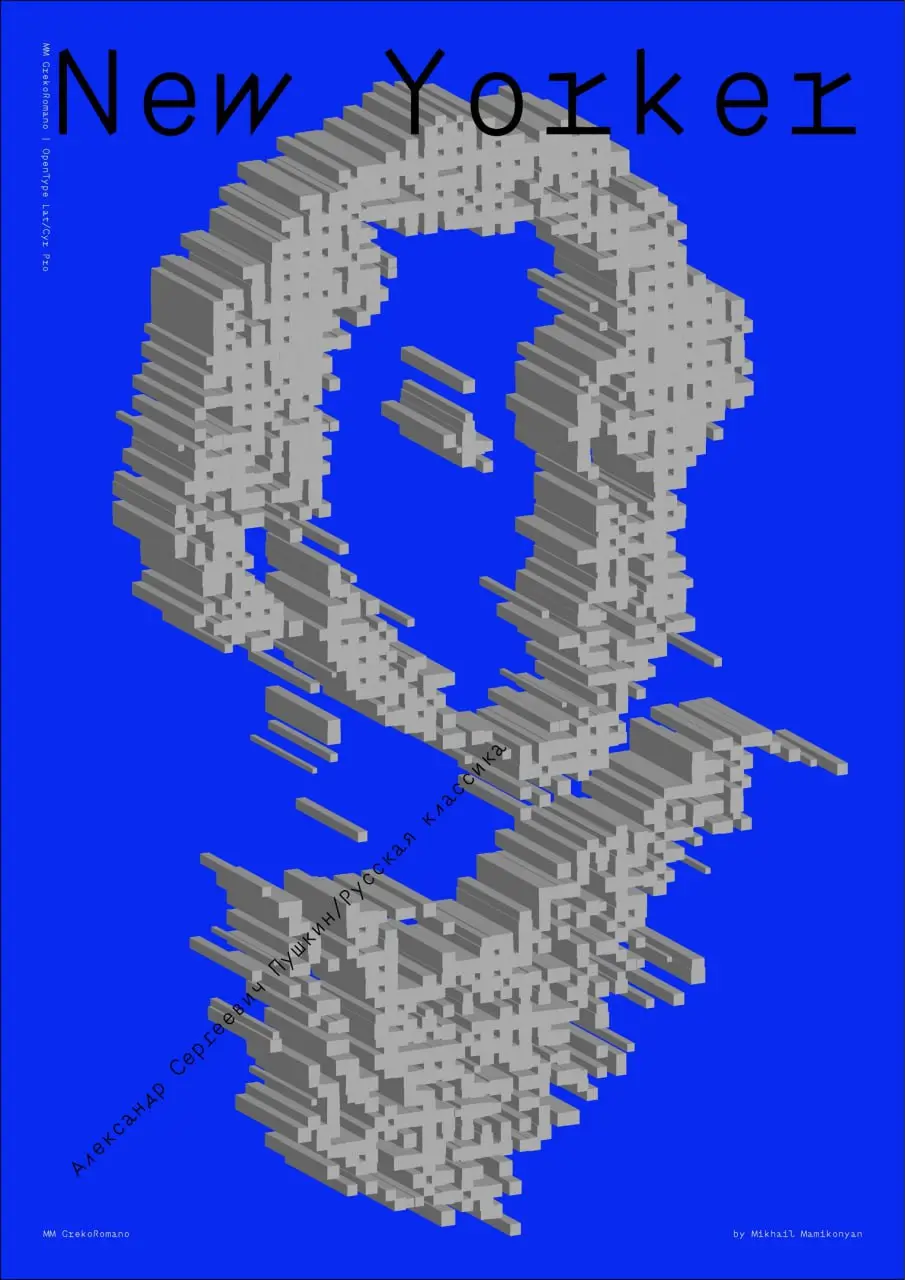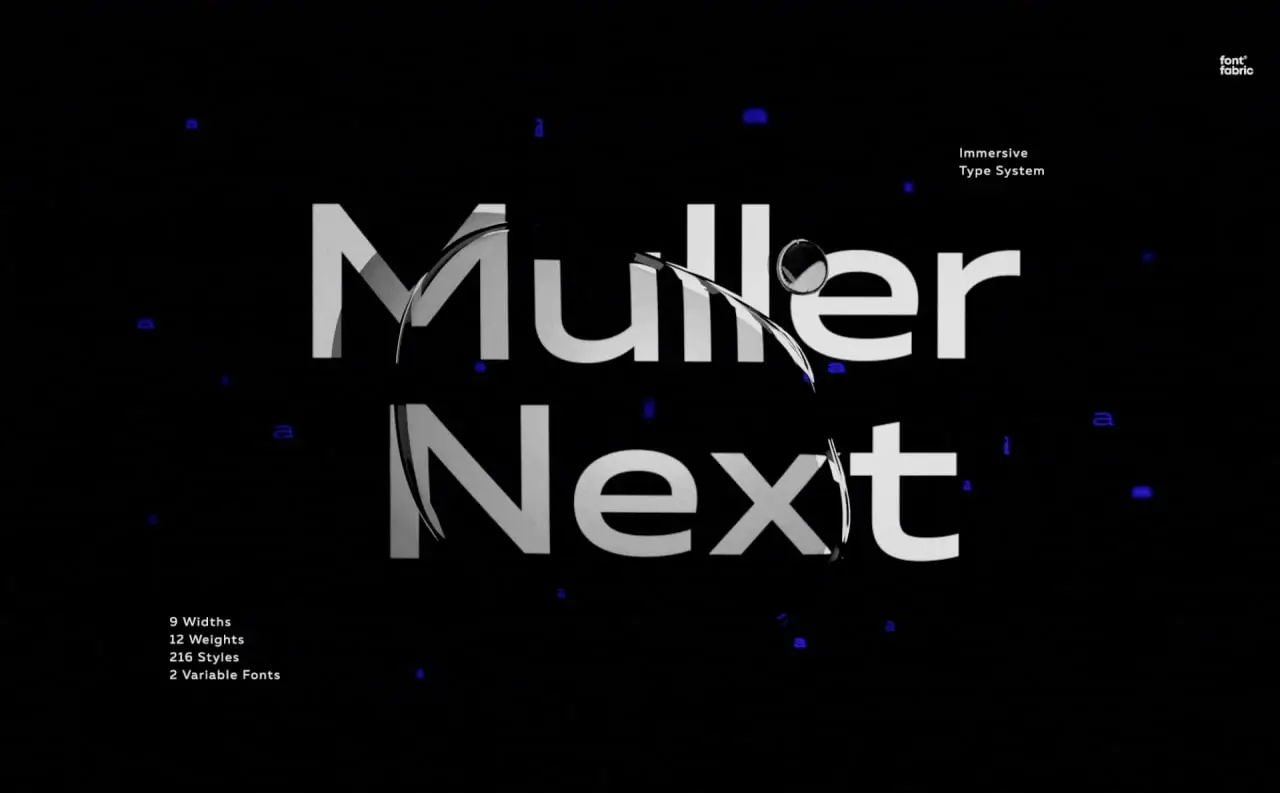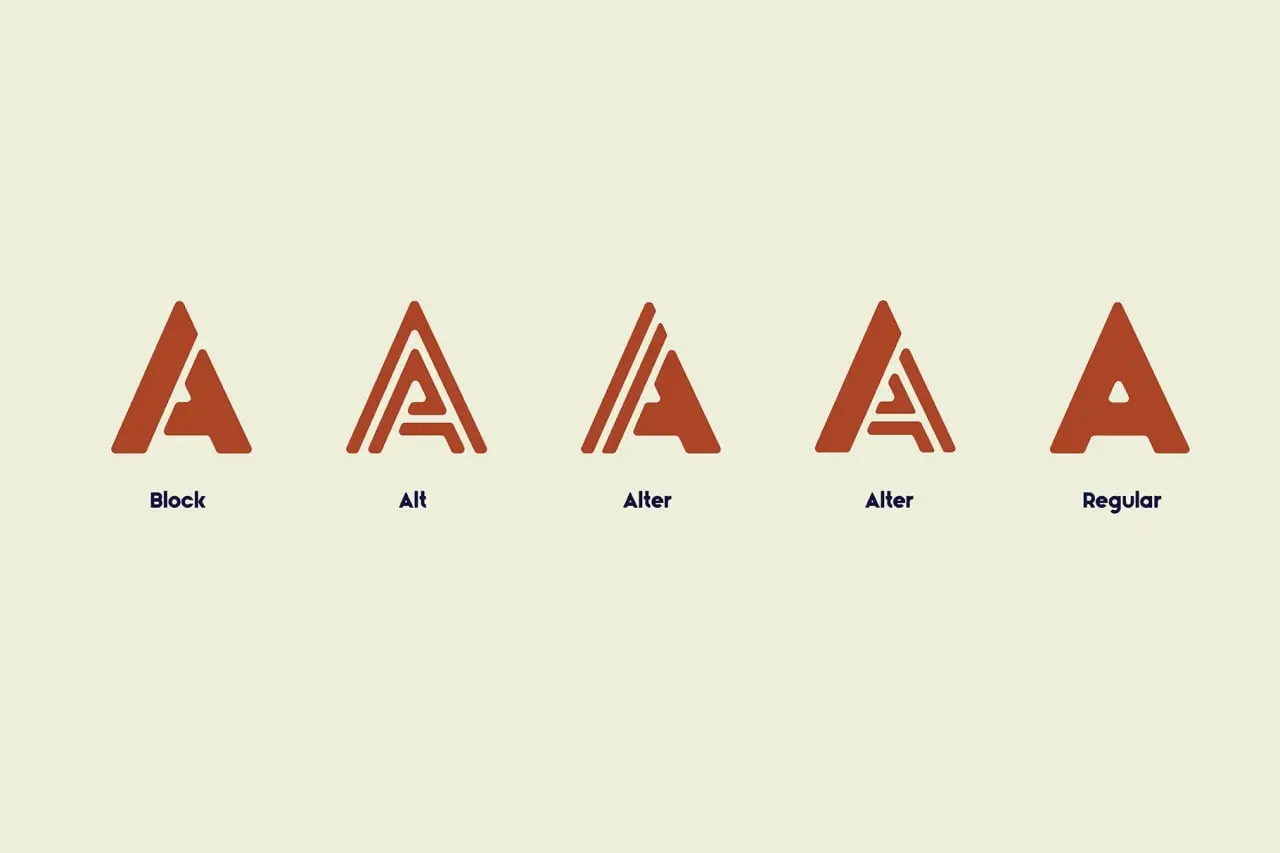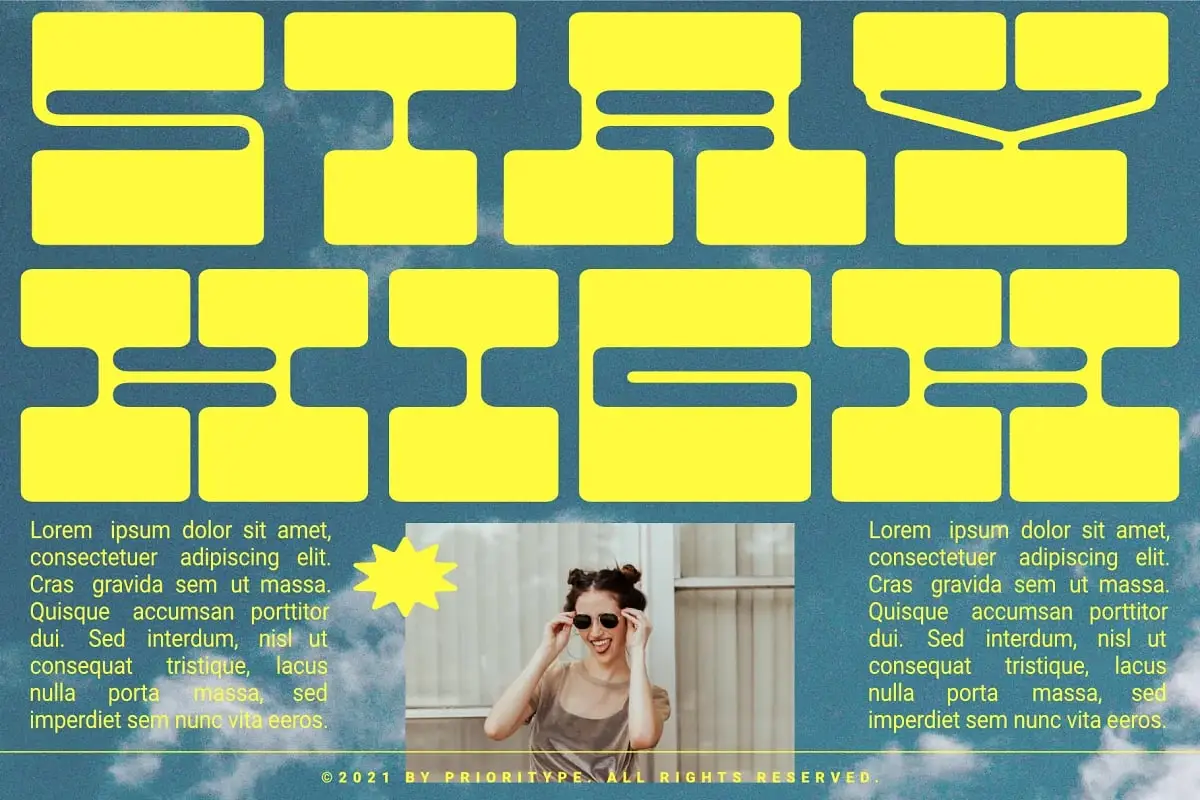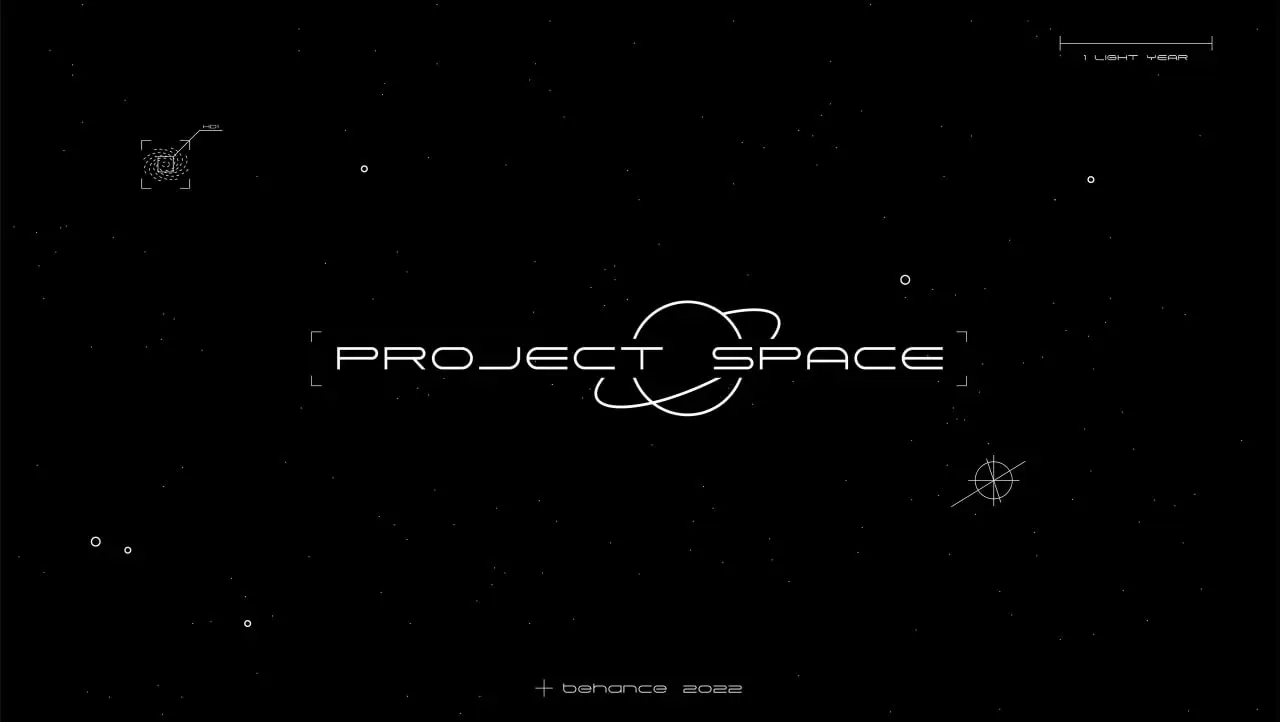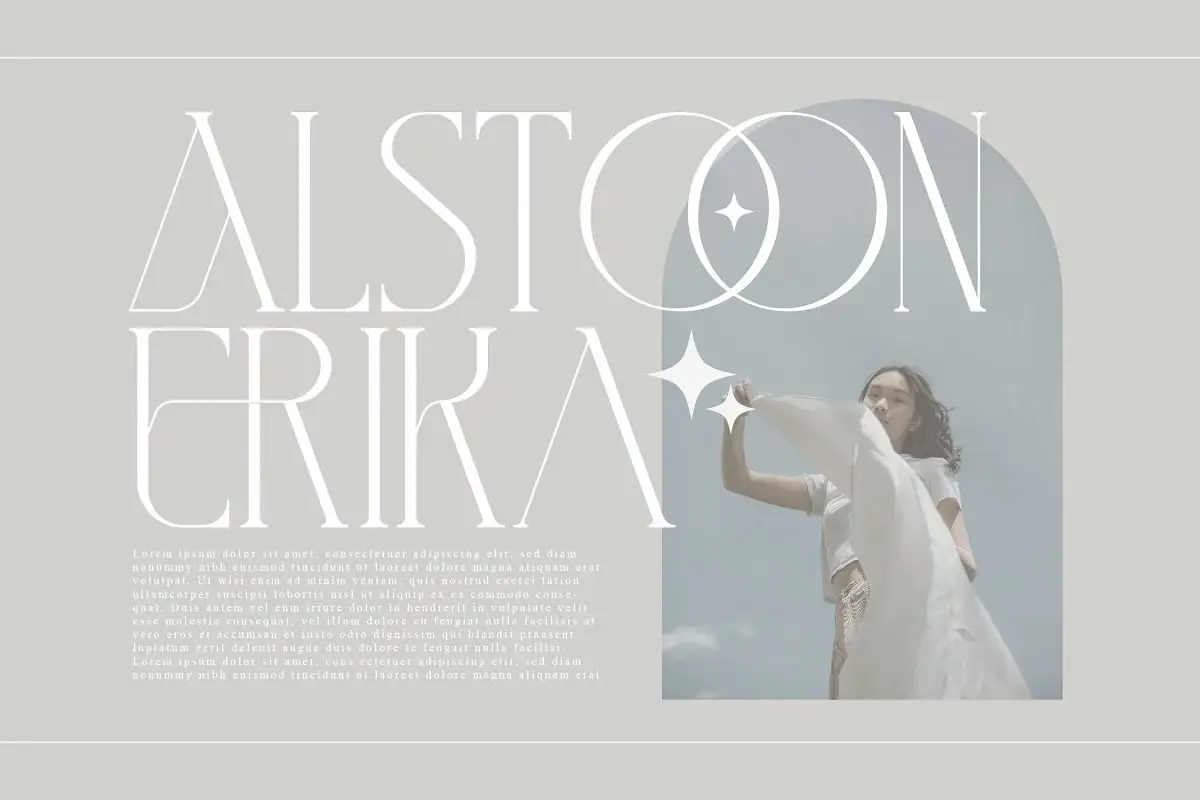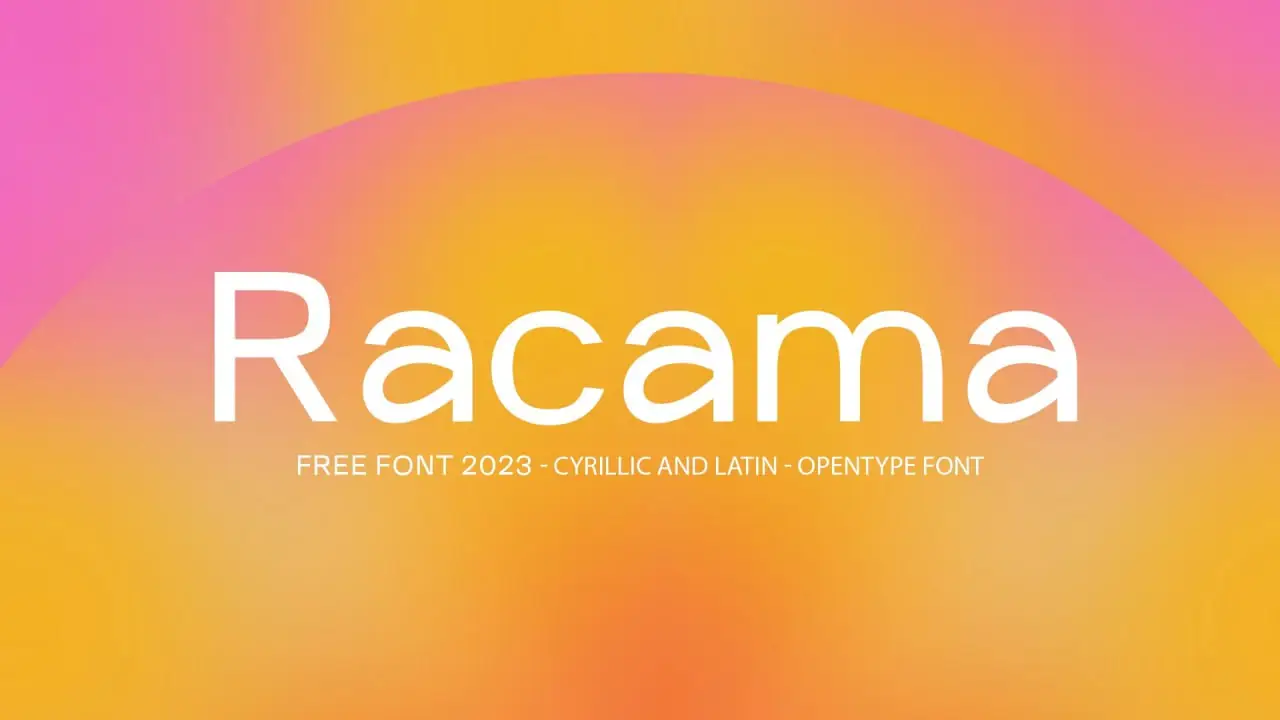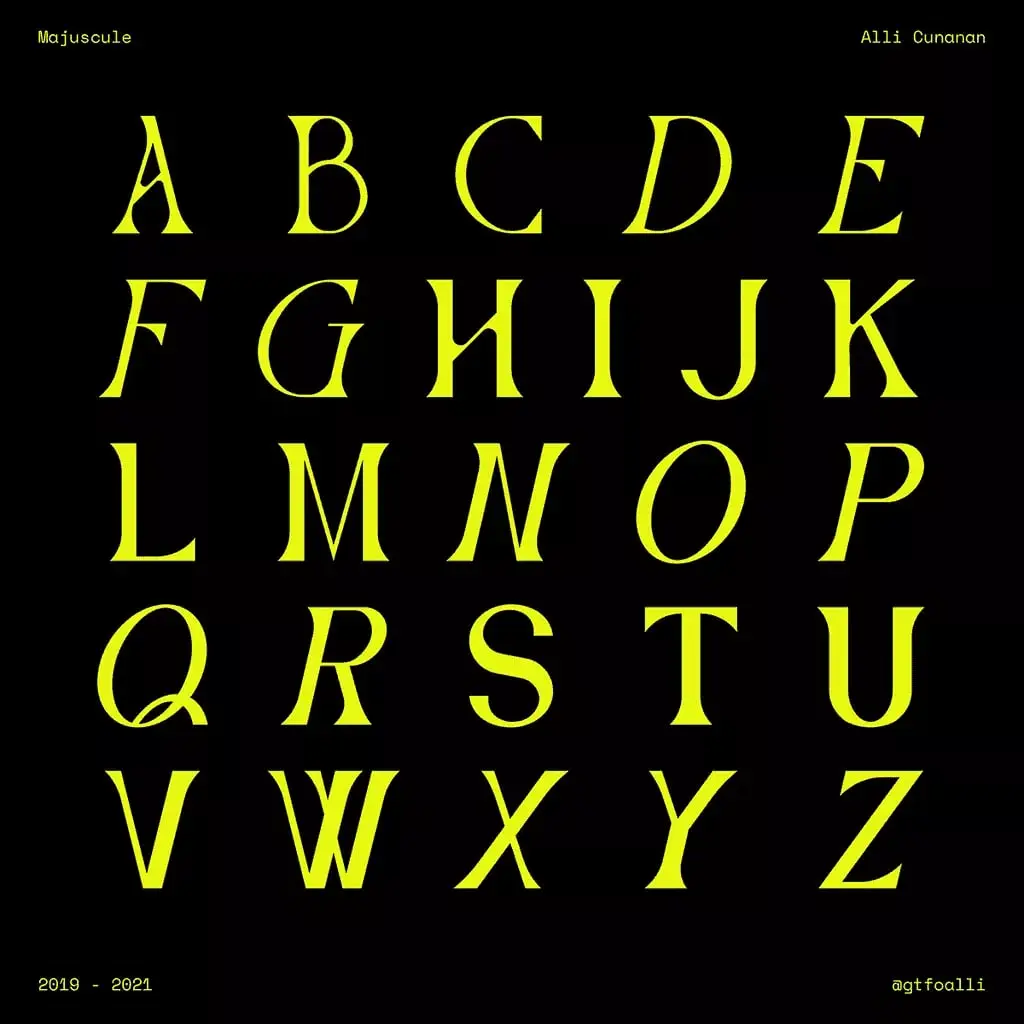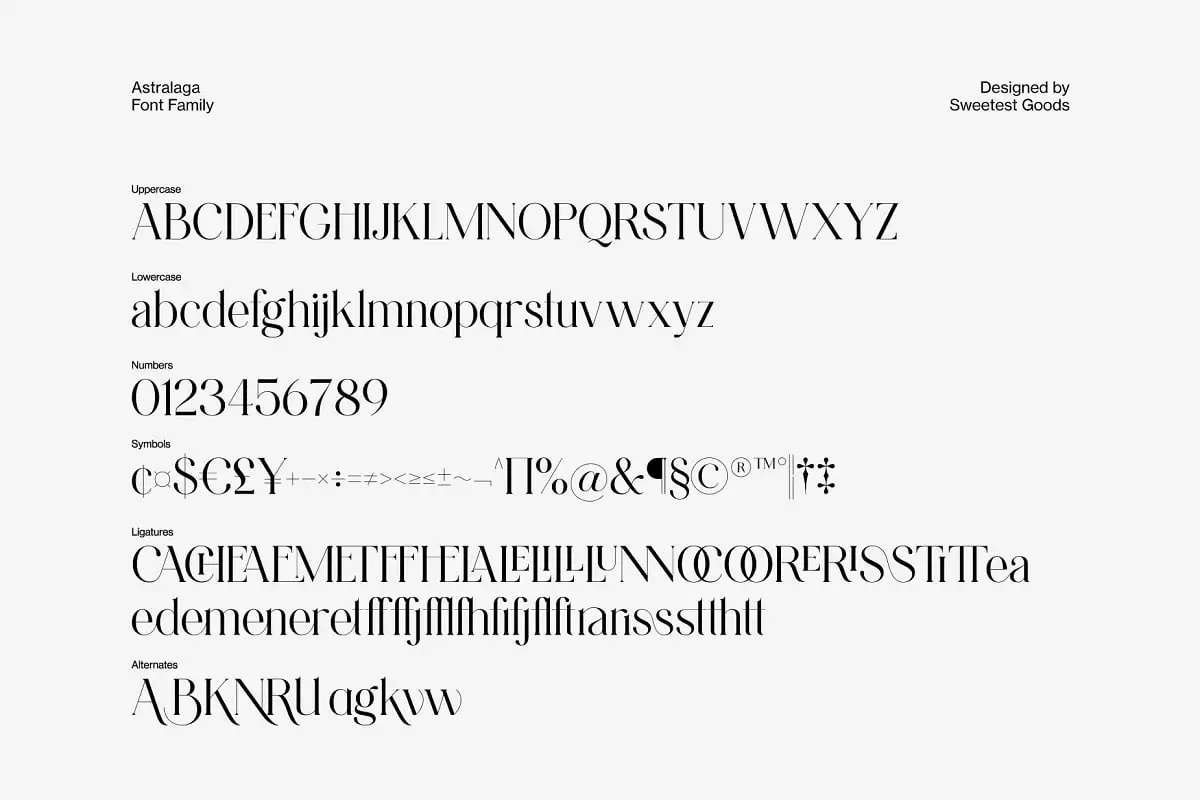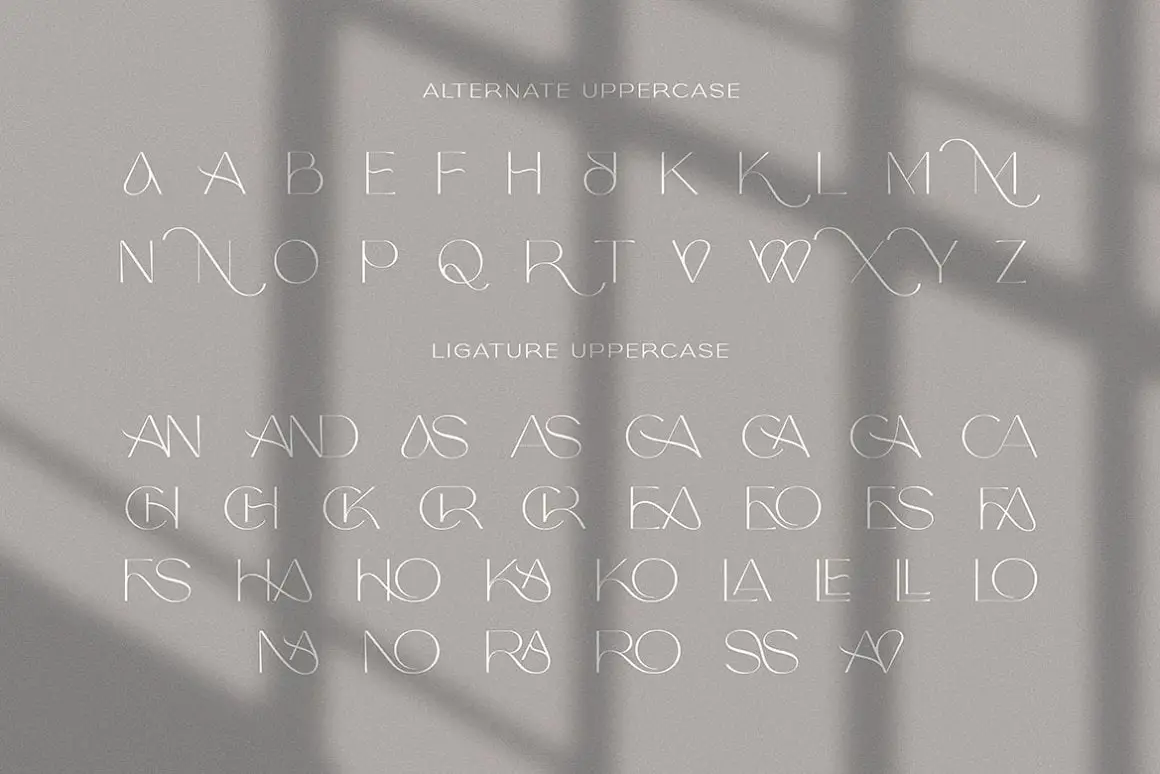
Hey there, creative soul! 🎨 Are you ready to give your design projects a serious glow-up? The BrushesPack Collection Part 83 has just landed, and it’s packed with an incredible arsenal of fonts, typefaces, and design assets that will make your work stand out from the crowd. From elegant scripts to modern sans-serifs, this drop is a typography lover’s dream! 🚀
Whether you’re crafting a killer brand identity, designing a stunning website, or just adding some flair to your next poster, the right font can make all the difference. Let’s dive into this treasure trove of 20 fresh picks that will elevate your art to the next level! ✨
Why Use These Digital Design Assets?
Great typography is the silent hero of any design project. It doesn’t just convey a message—it sets a mood, builds trust, and captures attention. 🖌️ The fonts and assets in this collection are meticulously crafted for clarity, style, and versatility, making them perfect for everything from social media graphics to high-end print materials. Say goodbye to boring type and hello to unique character! 💫
Top 20 Typography Picks from BrushesPack Collection Part 83
Mustakim-The Antter Script
This beautifully flowing script font is pure elegance! 🖋️ With its unique character variations and multiple weights, Mustakim-The Antter Script is perfect for logos, wedding invites, or any project that needs a touch of graceful cursive charm. ✨
Optical 025 Typeface (Trial Version)
Get your hands on this sleek and contemporary typeface! 😎 The Optical 025 trial version offers multiple weights and exceptional readability, making it a versatile choice for both digital screens and high-quality prints. Try before you buy! 🚀
Yandex Sans
Clean, modern, and incredibly versatile! 💻 Yandex Sans is a powerhouse sans-serif font optimized for both screen and print. With a wide character set supporting multiple languages, it’s your go-to for global projects and crisp user interfaces. 🌍
Muller Next By Plamen Motev, Leon Hugues, Radomir Tinkov
A collaborative masterpiece! 🎭 Muller Next offers a range of weights and a clean, contemporary aesthetic. It’s a font family that feels right at home in any design, from editorial layouts to bold branding. This one is a total workhorse. 🏋️
The Rivers-Modern Sans Font
Simplicity meets style with The Rivers! 🌊 This modern sans-serif font features clean lines and a contemporary vibe, plus includes uppercase, lowercase, numerals, and punctuation. It’s the perfect foundation for any sleek design project. 💎
Truin By Mariya Polishchuk
Looking for something unique? 🧐 Truin brings a fresh perspective with distinctive design elements that stand out in a crowd. Perfect for branding and web design, this asset is all about making a bold statement. 🔥
Sweetest Goods Astralaga Elegant Font Family
Sophistication is the name of the game! 🍬 The Astralaga font family is a stunning collection with multiple styles (Regular, Bold, Italic, and more). It’s elegant, charming, and perfect for adding a touch of class to your projects. 👑
Tt Frantz By Vika Usmanova
Meticulously crafted and stunningly modern! 💅 Tt Frantz blends elegance with a contemporary edge, making it a top pick for logos, branding, and web design. It includes multiple weights and both uppercase and lowercase characters. 🌟
Sligoil Micro By Igor Stepanchenko, Ariel Martín Pérez
Clean, crisp, and highly legible! 👓 Sligoil Micro is a modern sans-serif perfect for digital design. With multiple weights and a clean aesthetic, it enhances readability while keeping your visuals looking sharp. A must-have for UI/UX designers! 🖥️
Ryan Vierra-Nesia Sans Font
Versatility at its finest! 🛠️ This modern sans-serif font is designed for clarity and comes with multiple weights. Perfect for everything from brand logos to print media, Nesia Sans keeps your text looking professional and polished. 📄
Roma Serif By Alli Cunanan
Elevate your editorial game! 🏛️ Roma Serif is a sophisticated serif font that combines classic elegance with modern flair. Featuring stylish ligatures and alternate characters, it’s a dream for branding and long-form reading. ✍️
Pikolo Font
Modern and playful! 🎈 Pikolo Font brings a fresh energy to your projects with its clean lines and unique character shapes. It’s super versatile—think branding, UI design, and eye-catching logos. A little quirky, a lot of fun! 🚀
Racama By Shishin Serg
Unlock your creativity with this unique digital asset! 🔓 Racama offers high-quality, customizable design elements that are easy to integrate into your workflow. Whether for branding or web design, it’s built to inspire innovation. 💡
Prioritype-Urban Java Font
Add some urban energy to your designs! 🏙️ Urban Java features a unique blend of street-style aesthetics and contemporary design. With multiple weights and full character sets, it’s perfect for edgy branding and standout headlines. ☕
Project Space By Ver Wave